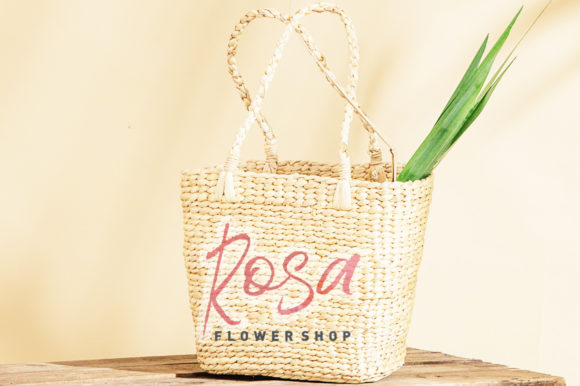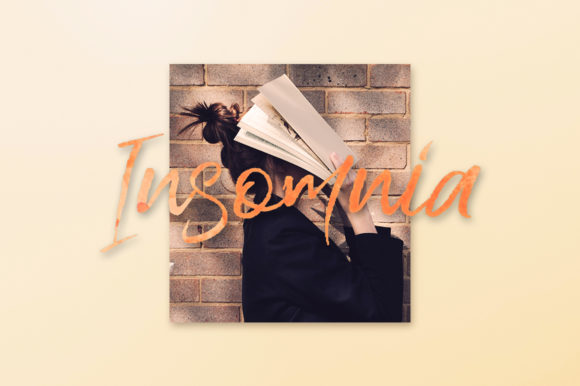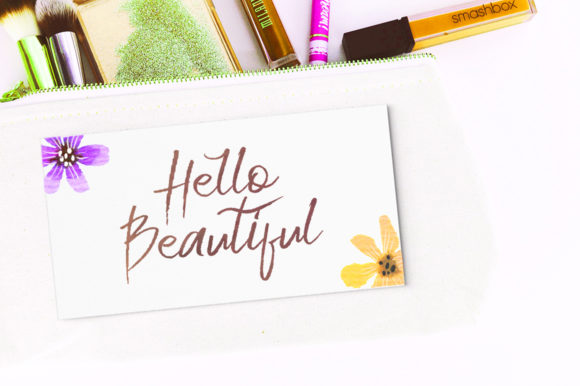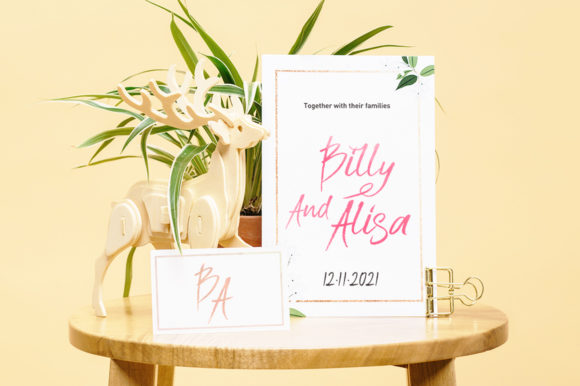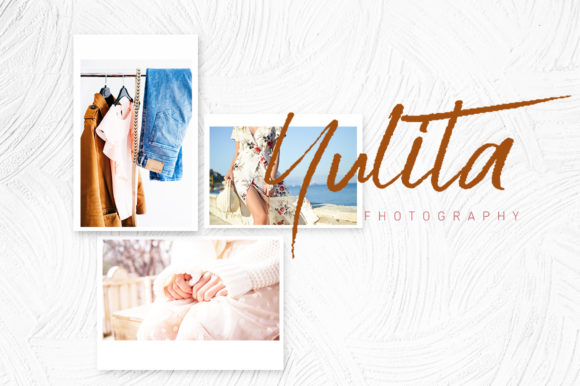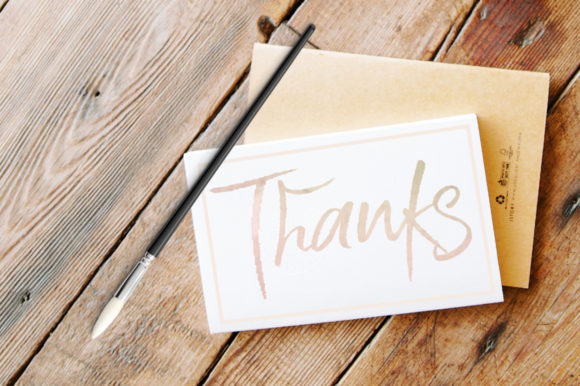
HomeScript FontsInk Hill Font Script Fonts Ink Hill Font FacebookXPinterestWhatsApp Ink Hill Font Poster 2 Ink Hill Font Poster 3 Ink Hill Font Poster 4 Ink Hill Font Poster 5 Ink Hill Font Poster 6 Ink Hill Font Poster 7 About Ink Hill Font Ink Hill is a modern handwritten script. It’s easy to use and has great readability! DOWNLOAD ON CREATIVE FABRICAThis font is sold and delivered by Creative Fabrica. Font Canyon may earn a commission if you buy through this link. People also explored Mine Valentine Font Kallem Font White Christmas Monogram Font BM Graphics – Dollar Symbols Font Oretans Font Kenzie Font Archipelago Font Arief Font Kid Ul Font 311 0 TagsInk Hill Font Previous articleGembulla FontNext articleButtercake Font LEAVE A REPLY Cancel reply Comment: Please enter your comment! Name:* Please enter your name here Email:* You have entered an incorrect email address! Please enter your email address here Website: Save my name, email, and website in this browser for the next time I comment. Personal Use Free Hunters Personal Use Free Read more about this font Engine Personal Use Free Read more about this font Salmoni Personal Use Free Read more about this font Dr.Marz Personal Use Free Read more about this font BLOG Best Fonts for T-Shirt Design – Top 2025 Picks In 2025, t-shirt design has become more than just fashion—it's a form of self-expression. Whether you're... Transform Your Website: Elevate Your Typography with 7 Best Web Font Generators How to Install and Use Fonts on Windows, macOS, and Web Projects Using Fonts in Digital Marketing: Tips to Strengthen Your Brand Identity